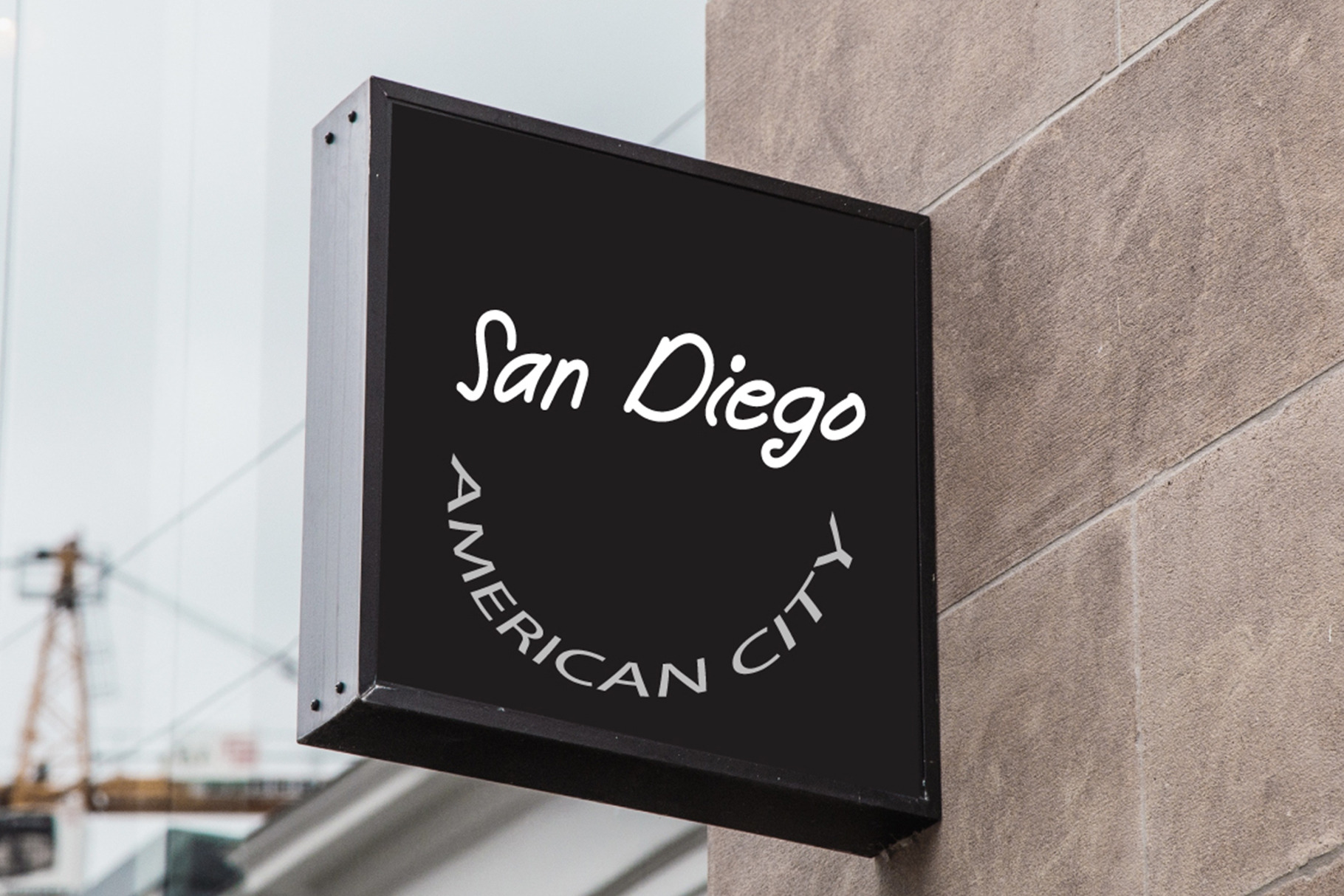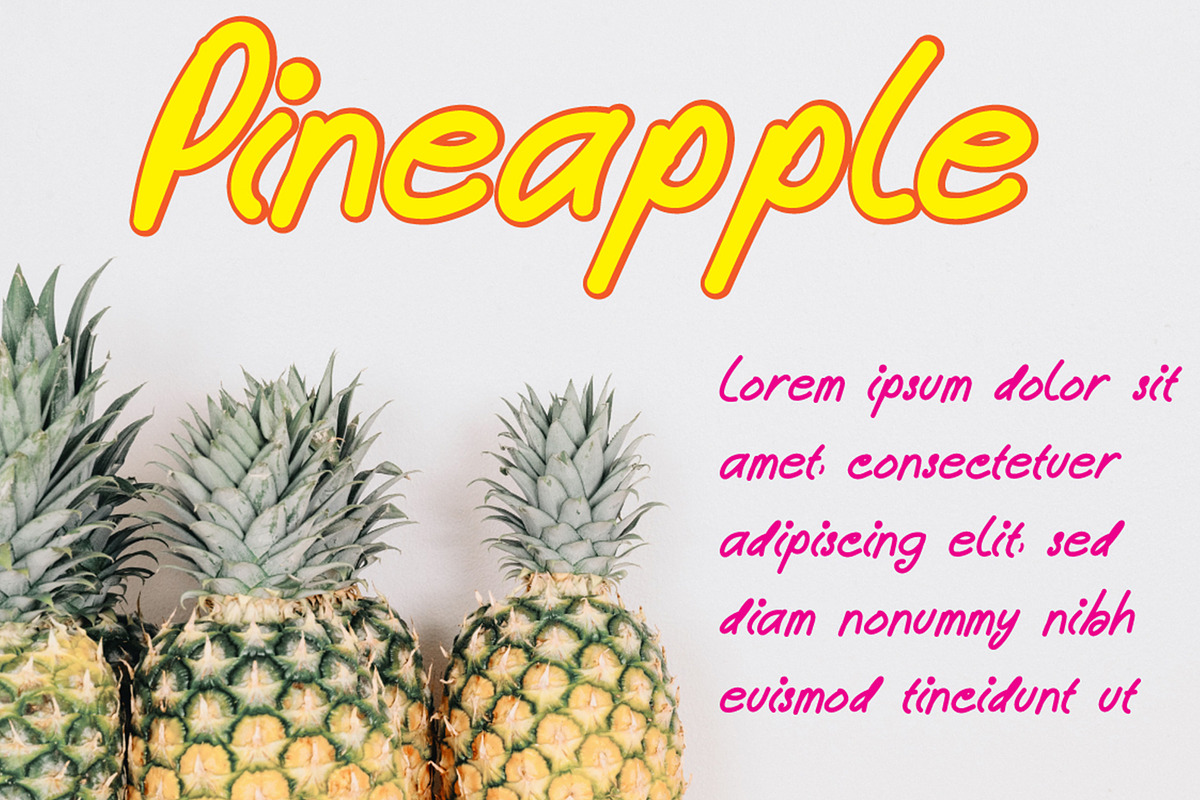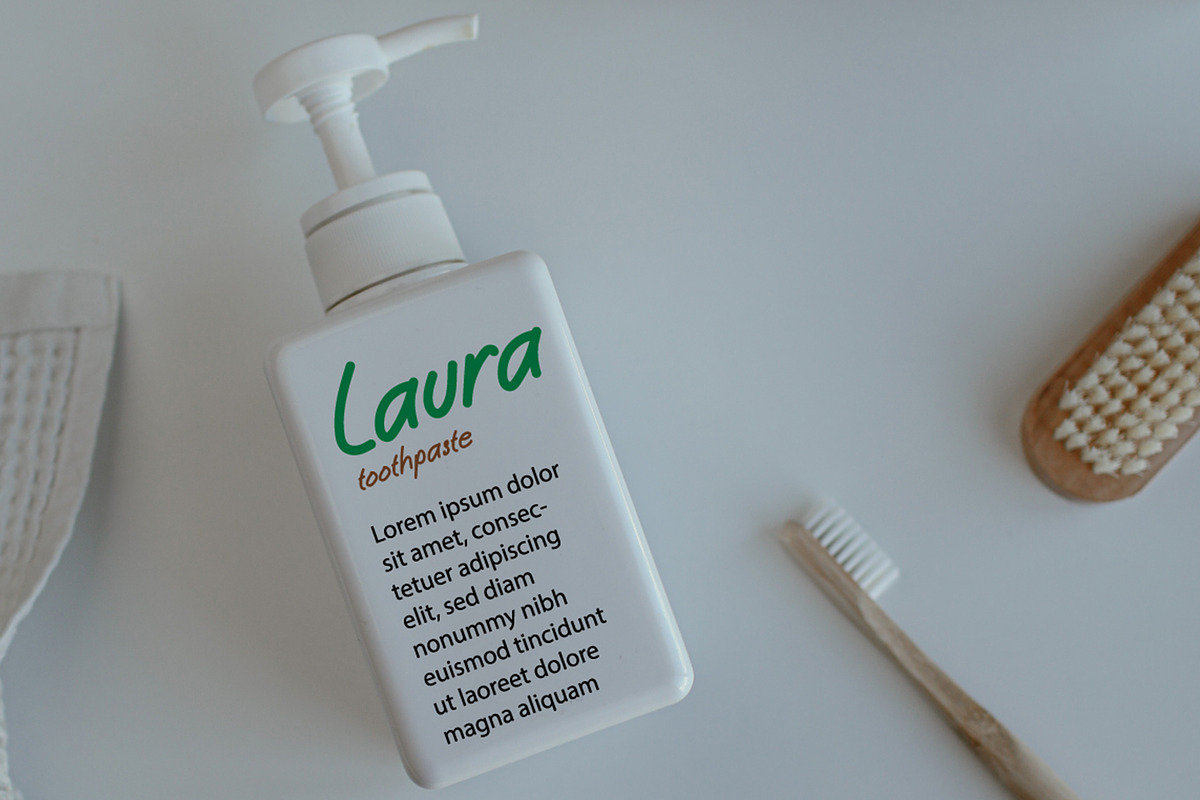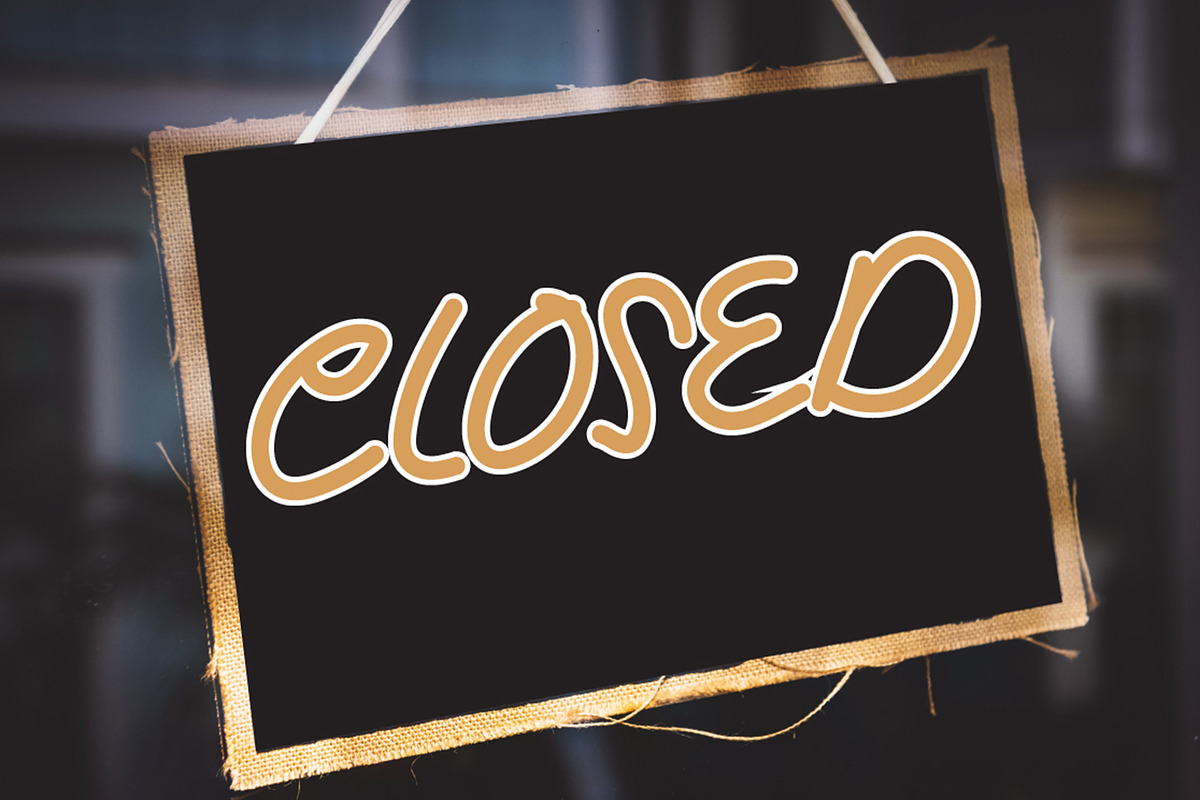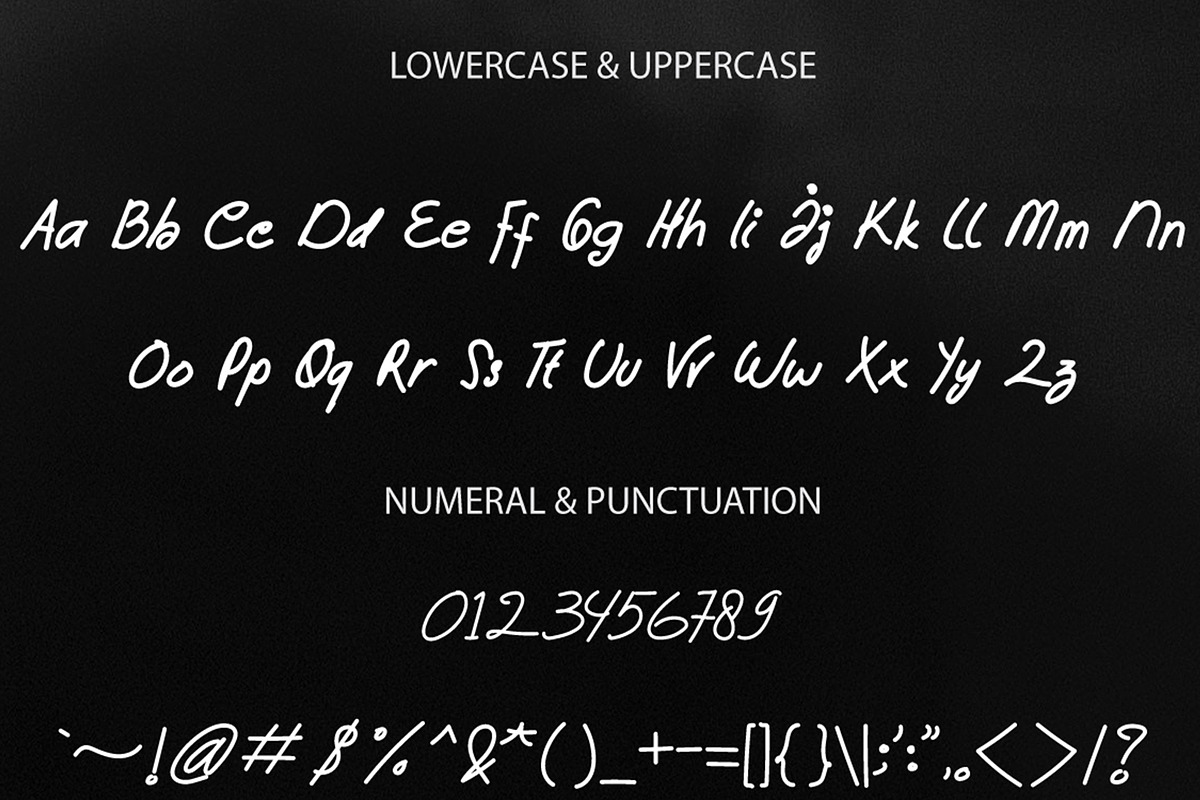
Antasena – Classic Handwritten Font
Introducing Antasena, a timeless handwritten font that blends classical elegance with a bold, expressive edge. Crafted to resemble vintage penmanship with a touch of character, Antasena is perfect for giving your work an authentic, hand-drawn appeal.
This font exudes both nostalgia and creativity, making it perfect for a wide range of projects—from fun cartoon titles to sophisticated brand names. Its flowing curves and classic handwritten style make every word stand out, whether used in print or digital design.
Ideal for:
Comic books & cartoon content
YouTube thumbnails and headers
Instagram, Facebook, and Twitter graphics
Entertainment titles and TV shows
Company logos and branding
Product packaging and labels
Creative titles and posters
Children's content and educational materials
Antasena is designed to offer versatility—classic enough for elegant branding, yet playful enough for modern media. With its natural strokes and stylish charm, it gives your message a voice that’s both friendly and refined.
Uppercase & lowercase letters
Numbers and punctuation
Smooth and flowing handwritten strokes
Ideal for both print and digital formats
Let your words speak with classic personality using Antasena—a handwritten font with charm, history, and heart.